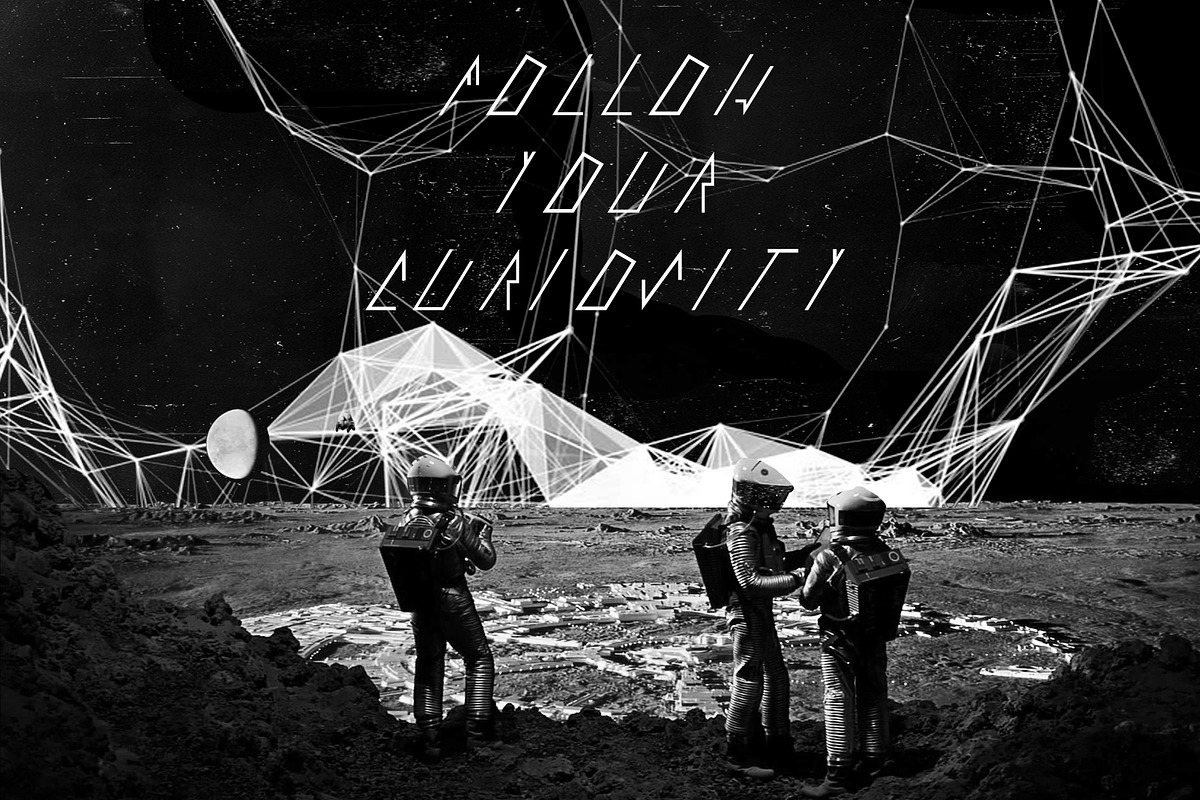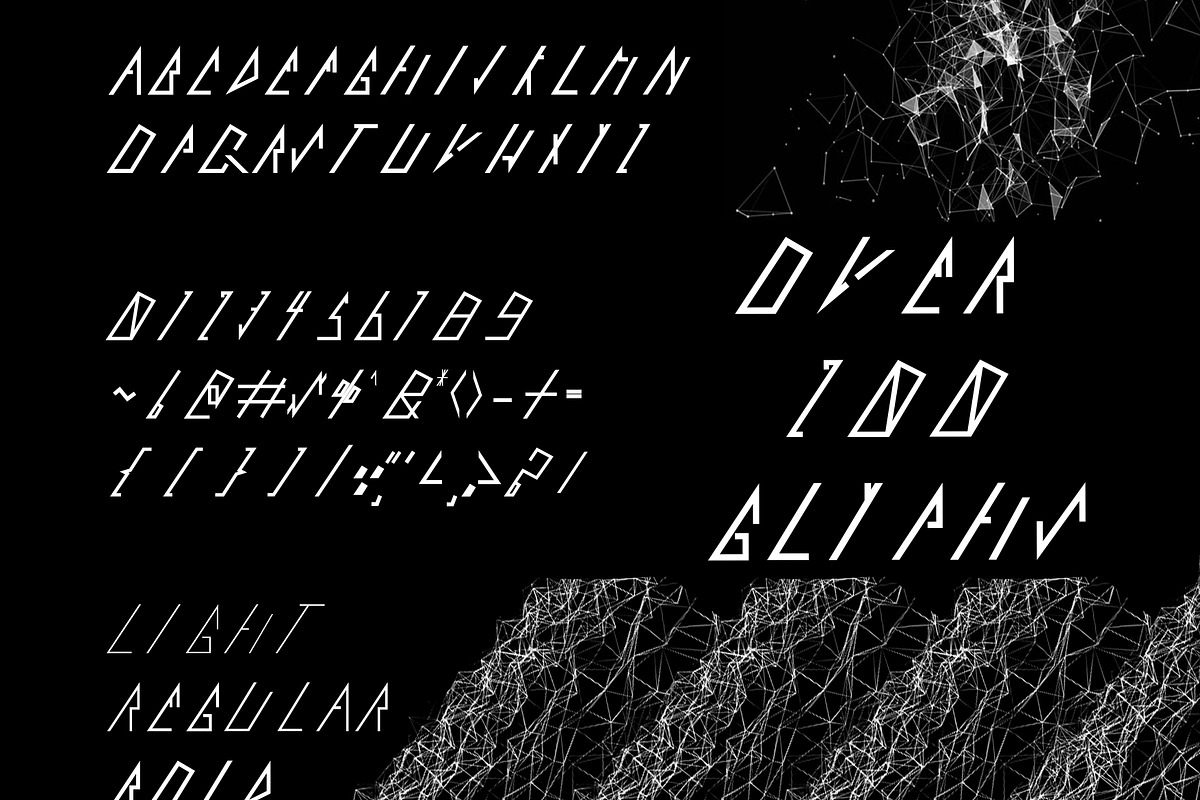
MEER Typeface
MEER Typeface by Alpha Mike Foxtrot is a font selected for branding, posters, packaging, typography.
- MEER includes more than 200 glyphs, and 3 weights.
- Meer Light
- Meer Regular
- Meer Bold
Why MEER Typeface is worth a look
MEER Typeface by Alpha Mike Foxtrot fits naturally into Branding, posters, packaging, typography.